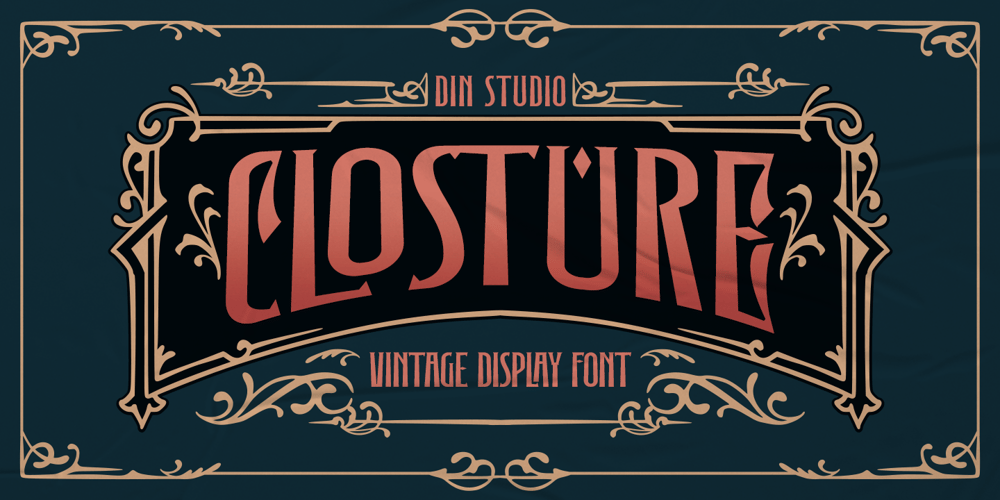
Closture
Closture font
Closture Font Family was designed by Donis Miftahudin and published by Din Studio. Closture contains 1 styles and family package options. Introducing Closture-a vintage-inspired all-caps font that combines boldness with timeless elegance. Designed with a fairly bold weight, Closture stands out with its strong presence while maintaining consistent proportions for a balanced and harmonious look. This font channels a classic aesthetic that adds a touch of nostalgia to any design. As an extra, this font gives ornaments. In addition, enjoy the features here.Features: Alternates Ligatures Multilingual Supports PUA Encoded Numerals and Punctuations Closture fits in logos, posters, flyers, branding materials, print media, editorial layouts, and many more designs. Find out more ways to use this font by taking a look at the font preview.Thanks for purchasing our fonts. Hopefully, you have a great time using our font. Feel free to contact us anytime for further information or when you have trouble with the font. Thanks a lot and happy designing.